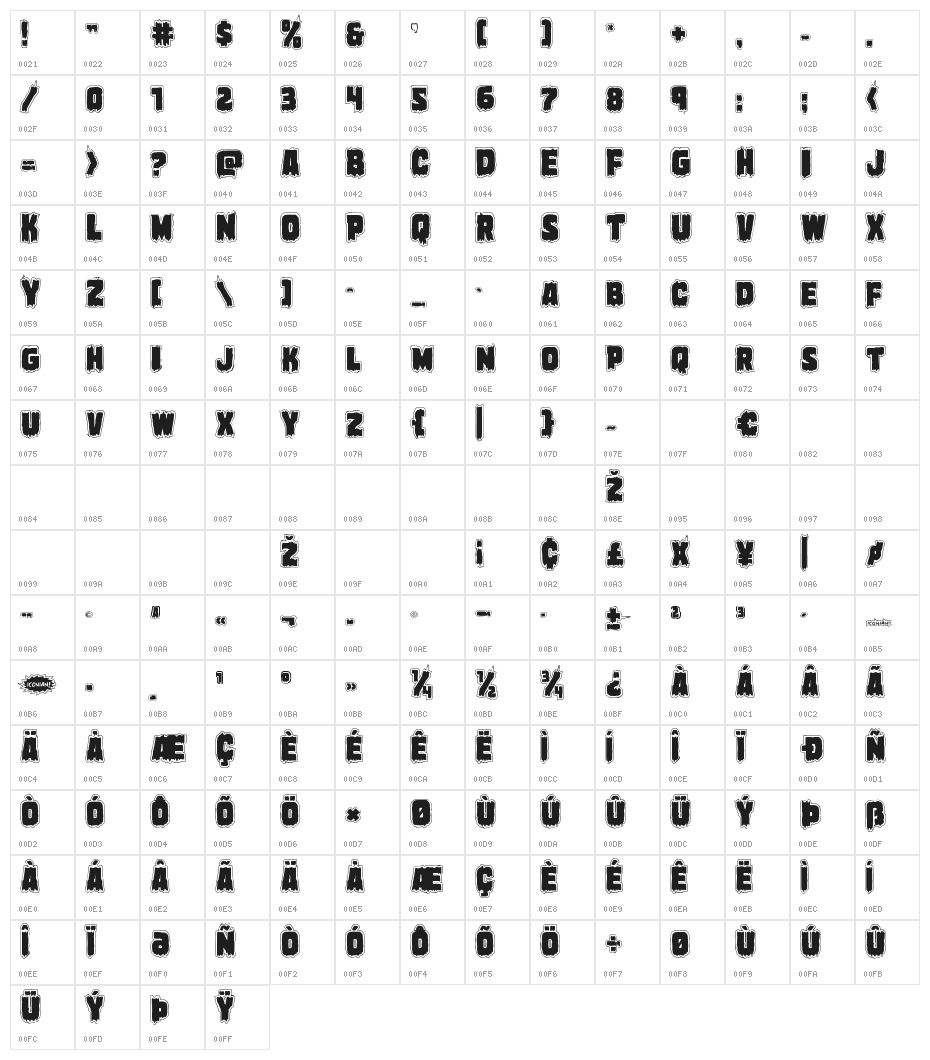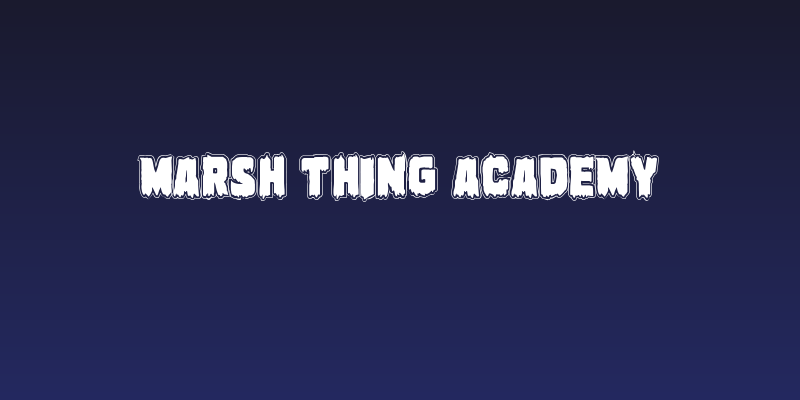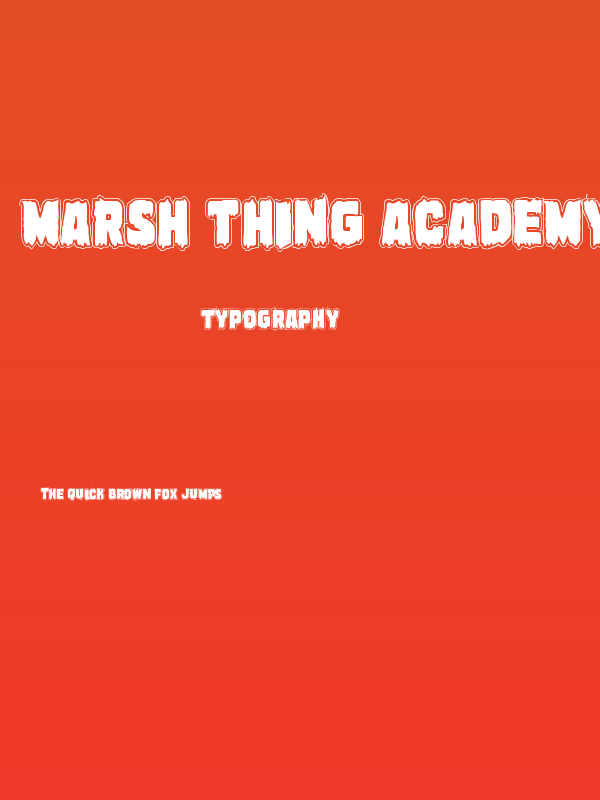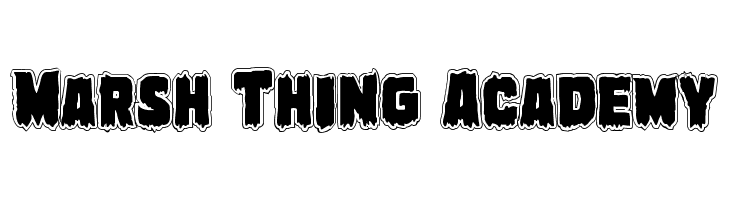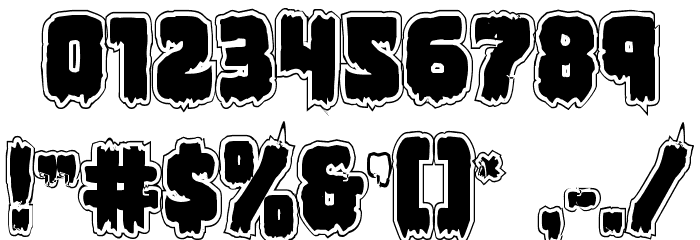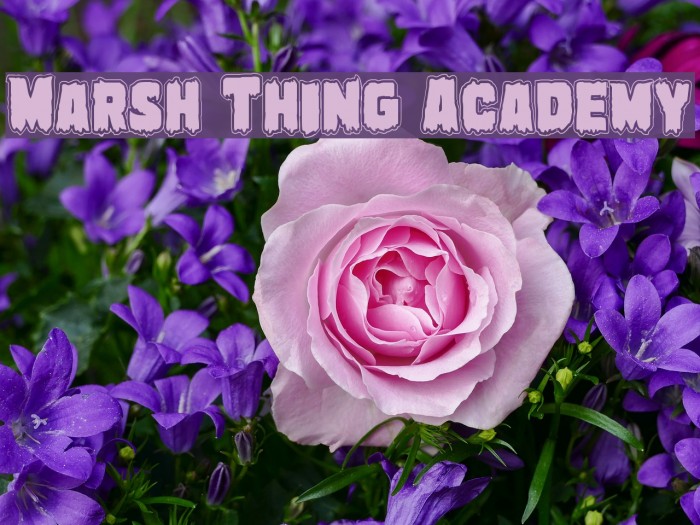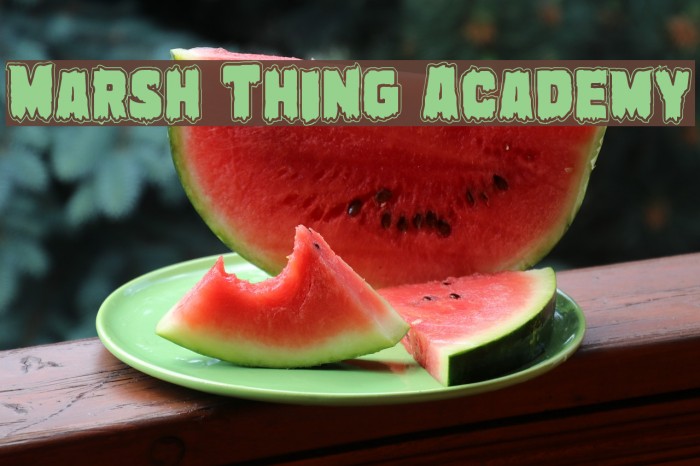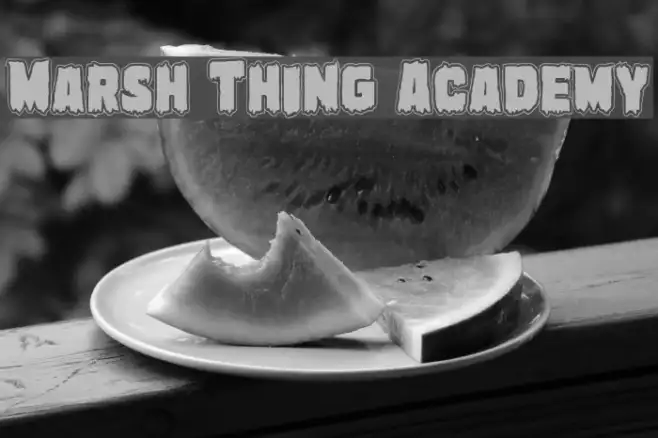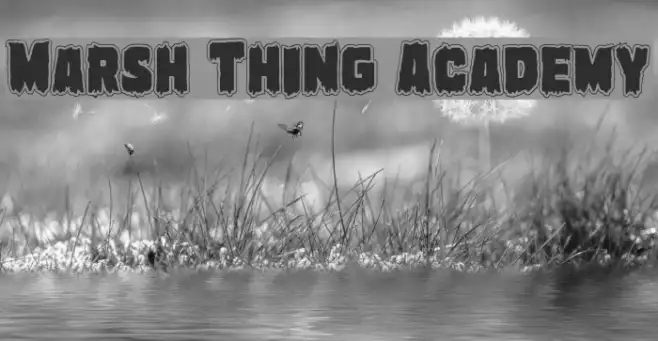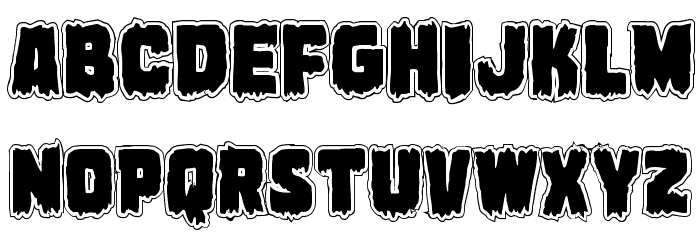
Marsh Thing Academy Font
Marsh Thing Academy Description
This font features a bold and playful design with a unique, dripping effect that gives it a spooky, Halloween-inspired appearance. The characters are thick and heavily outlined, creating a strong visual impact. The irregular edges and the dripping style add a sense of movement and fluidity, making it ideal for themes that require a touch of the eerie or supernatural. The uppercase and lowercase letters maintain a consistent style, while the numbers and special characters complement the overall design. This font is perfect for projects that need a bold, eye-catching headline or title with a fun, thematic twist.